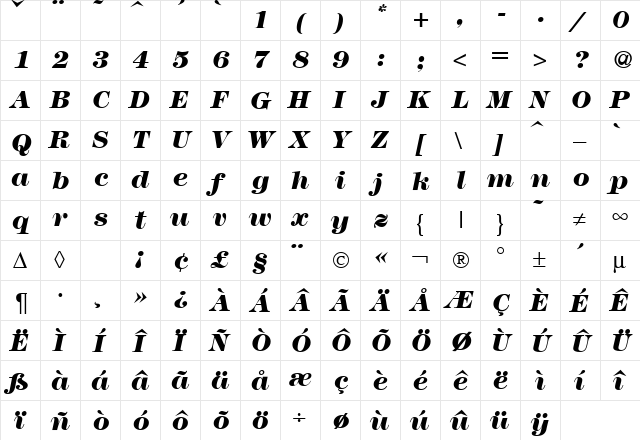
Modern438Heavy RegularItalic
Design Context for Modern438Heavy Typeface
Modern438Heavy is a composed and adaptable typeface that performs quietly and consistently across a wide range of design contexts. The slanted form adds forward momentum and visual energy.
Pro Tip: Use Modern438Heavy for emphasis, pull quotes, and subheadings where its slanted energy can add rhythm to the layout.